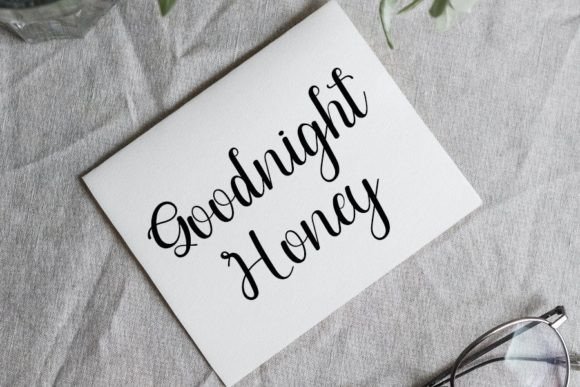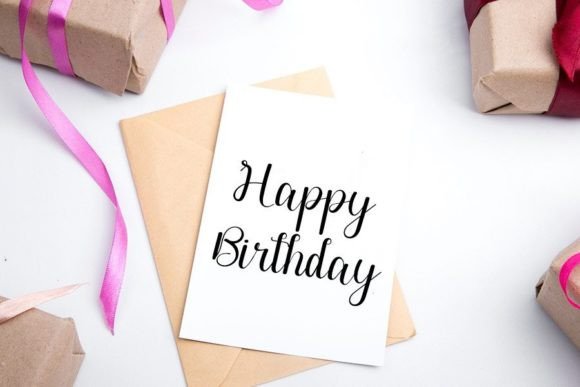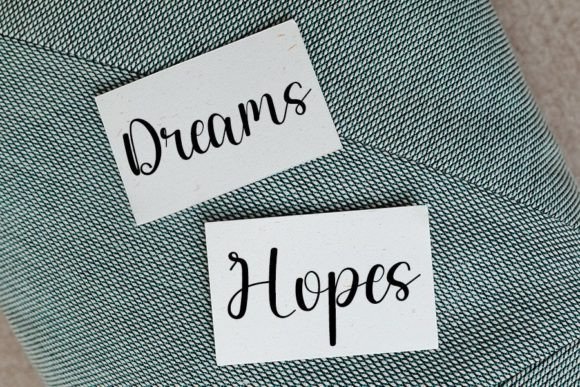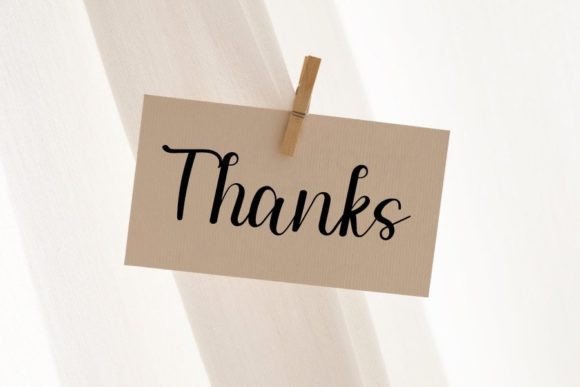
The Perfect Touch: Unveiling the Beauty of Balloons Font
Have you ever stared at a blank canvas, trying to spark creativity? It’s that moment of silence, where the only sound is the scratching of your pen on paper, waiting for the perfect idea to strike. And then, it hits you – the perfect font to bring your vision to life. For designers, the quest for the perfect font is a never-ending journey, but sometimes, it’s the simplest and most elegant designs that leave the biggest impression.
Enter the Balloons Font – a beautiful, handwritten font that adds an elegant touch to any project. This timeless design is perfect for creating spectacular designs that will leave a lasting impression. Whether you’re a seasoned designer or just starting out, the Balloons Font is a valuable addition to your toolkit, allowing you to add a touch of sophistication and whimsy to your work.
Balloons Font Key Features
- Unique Characteristics: Balloons Font features a playful, whimsical design with rounded shapes and bold lines, making it ideal for creative projects and children’s materials.
Balloons Font Review
I recently had the chance to work with the Balloons Font, and I must say it’s a unique and attention-grabbing choice for any design project.
- Expressive and playful nature – Balloons Font is perfect for designs that require a lighthearted and whimsical touch.
- Wide range of character styles – From bold and curvy to thin and elegant, the font offers a variety of options to suit different design needs.
- Scalability – The font remains legible and visually appealing even at larger sizes, making it suitable for posters, signage, and other large-scale applications.
- Lack of subtlety – The font’s playful nature may not be suitable for designs that require a more understated approach.
- Readability issues at small sizes – While the font is scalable, it may become difficult to read at very small sizes, such as in body text.
Overall, I think Balloons Font is a great choice for designers who want to add a touch of fun and personality to their projects. However, it’s essential to use it judiciously and in contexts where its playful nature will be effective. With careful application, this font can add a unique and memorable element to any design.
Some common use cases for Balloons Font include:
- Creating playful and whimsical designs for children’s products or events.
- Adding a touch of nostalgia and retro charm to modern designs.
- Using it as a creative way to highlight important text or headings.